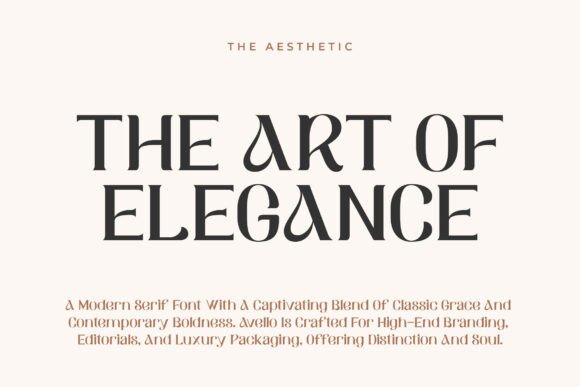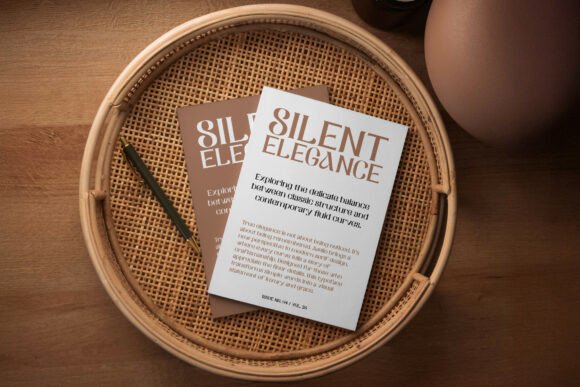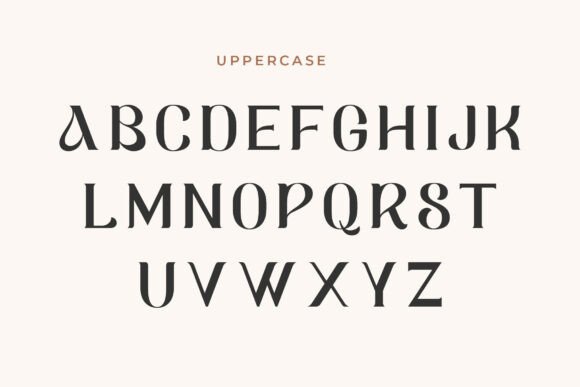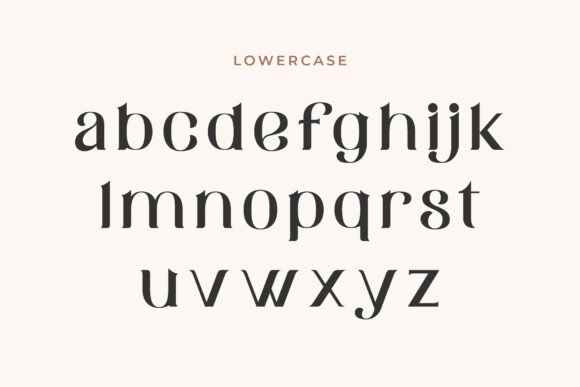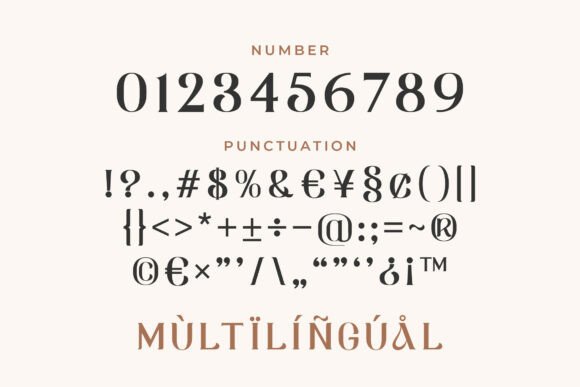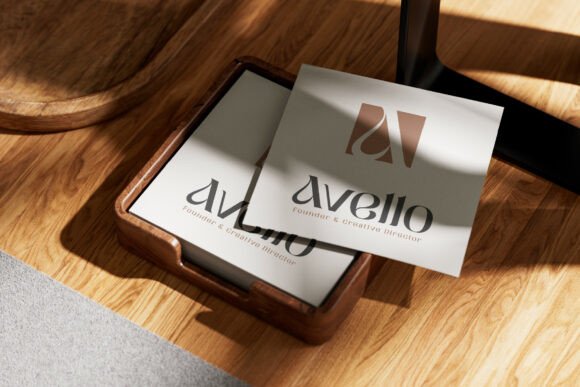
Introducing Avello Font: The Epitome of Sophistication and Refinement
In the world of typography, a font can make or break the visual identity of a brand. For those who demand authority and refinement, Avello font is the perfect solution. This sophisticated high-contrast serif typeface is meticulously crafted to redefine the modern classic aesthetic, making it an ideal choice for high-end projects.
The Characteristics of Avello Font
Avello font boasts sharp serifs and an elegant structure, which sets it apart from other typefaces. Its high-contrast design creates a sense of drama and luxury, making it perfect for projects that require a touch of sophistication. The font’s refined features and classic aesthetic make it an excellent choice for luxury branding, fragrance packaging, elite editorial spreads, and professional logos.
The Concept of “Quiet Luxury”
Avello font embodies the concept of “quiet luxury,” which is both commanding and sophisticated. This design philosophy is all about understated elegance, where the font’s subtle nuances and refined features take center stage. Whether you’re designing for a corporate signature or high-fashion headlines, Avello brings an air of quiet luxury that exudes confidence and refinement.
Perfect for High-End Projects
Avello font is designed to elevate high-end projects, making it an excellent choice for:
- Luxury Branding: Avello’s sophisticated design makes it perfect for luxury brands that want to convey a sense of refinement and elegance.
- Fragrance Packaging: The font’s elegant structure and high-contrast design make it an excellent choice for fragrance packaging, where visual appeal is paramount.
- Elite Editorial Spreads: Avello’s refined features and classic aesthetic make it perfect for elite editorial spreads, such as high-end fashion magazines.
- Professional Logos: The font’s commanding and sophisticated design makes it an excellent choice for professional logos, where a strong visual identity is essential.
Why Choose Avello Font?
With so many fonts available, why choose Avello? Here are just a few reasons:
- Unique Design: Avello’s high-contrast serif design sets it apart from other typefaces, making it a unique and distinctive choice.
- Versatility: The font’s elegant structure and refined features make it perfect for a wide range of projects, from luxury branding to high-fashion headlines.
- Sophistication: Avello embodies the concept of quiet luxury, making it an excellent choice for those who demand authority and refinement.
Tips for Using Avello Font
To get the most out of Avello font, here are a few tips:
- Use it sparingly: Avello’s sophisticated design makes it perfect for headlines and titles, but use it sparingly to avoid overwhelming the reader.
- Pair it with a sans-serif: Pairing Avello with a sans-serif font creates a beautiful contrast that adds visual interest to your design.
- Experiment with font sizes: Avello’s high-contrast design makes it perfect for use at large font sizes, but experiment with different font sizes to find the perfect balance for your project.
| Font Name | Avello Font |
| Author | Mily Studio |
In conclusion, Avello font is a sophisticated high-contrast serif typeface that is perfect for high-end projects. Its elegant structure, refined features, and classic aesthetic make it an excellent choice for luxury branding, fragrance packaging, elite editorial spreads, and professional logos. With its unique design, versatility, and sophistication, Avello is the perfect choice for those who demand authority and refinement.